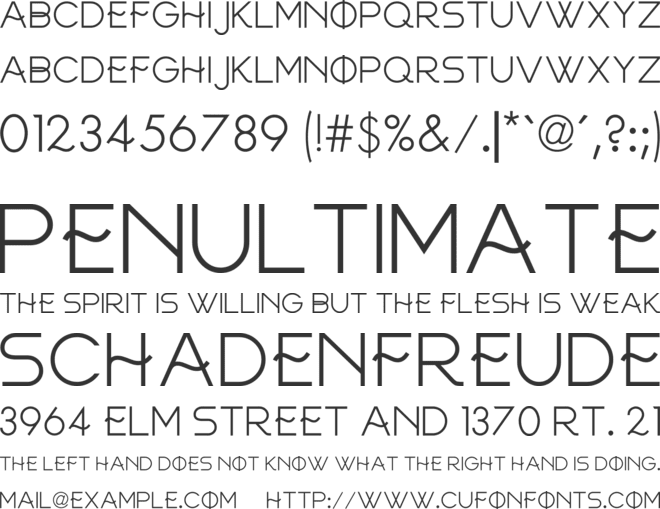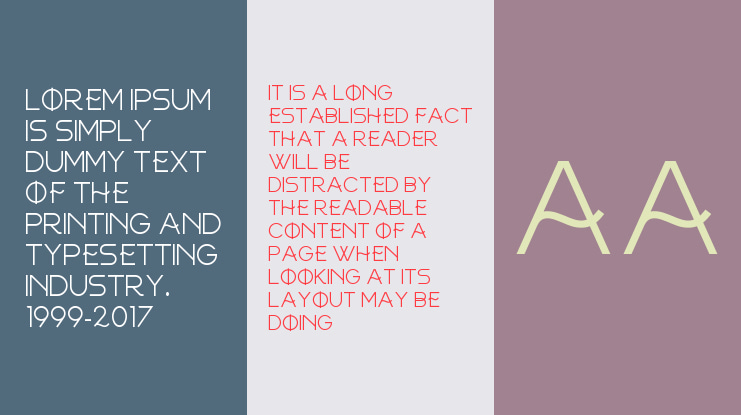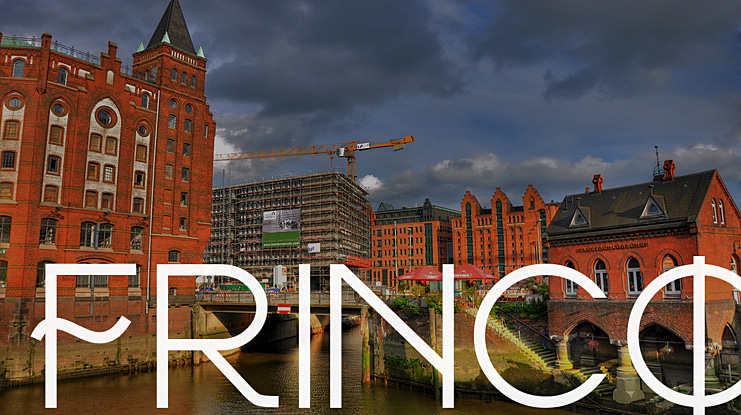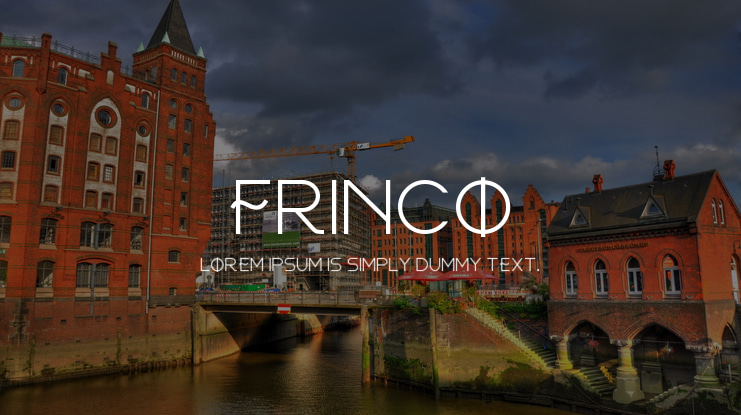
FRINCO Font
Pyae Wai Mya Win (Ryan)
FRINCO is a free elegant, simple, uppercase-only. It is totally free to use in both personal and commercial projects. Enjoy!